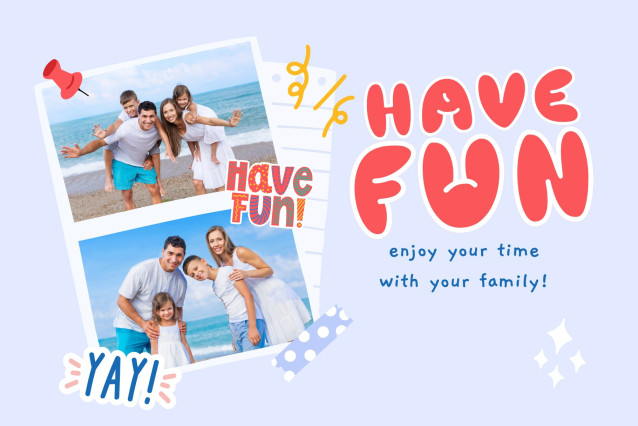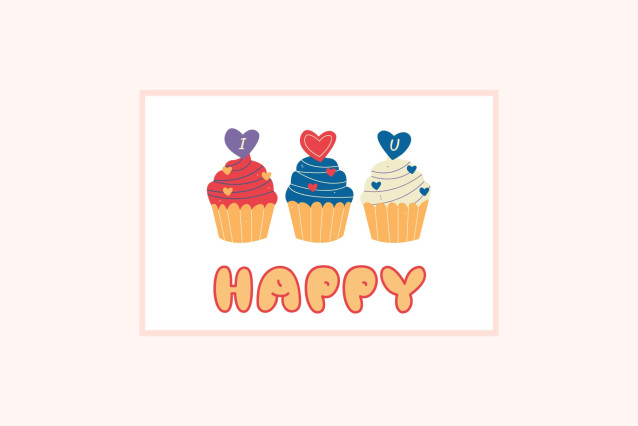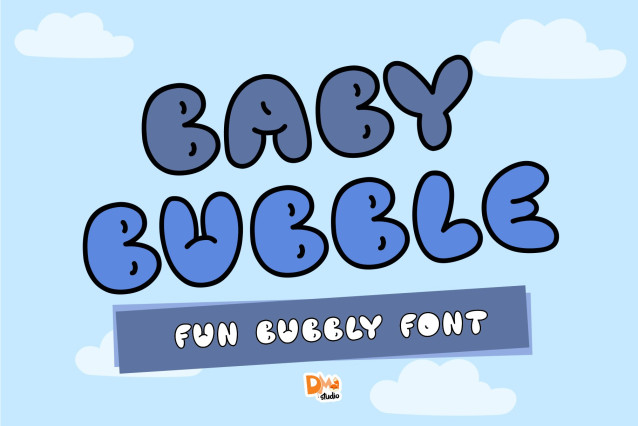
Baby Bubble Font
Baby Bubble Font is a playful and delightfully rounded display font that bursts with joy and whimsy. With its bubbly curves and cheerful vibe, this font brings instant charm to children’s designs, birthday invitations, product packaging, cartoons, and playful branding. Whether you’re crafting for kids or just want a pop of fun, Baby Bubble adds the perfect dose of sweetness and fun to any project.